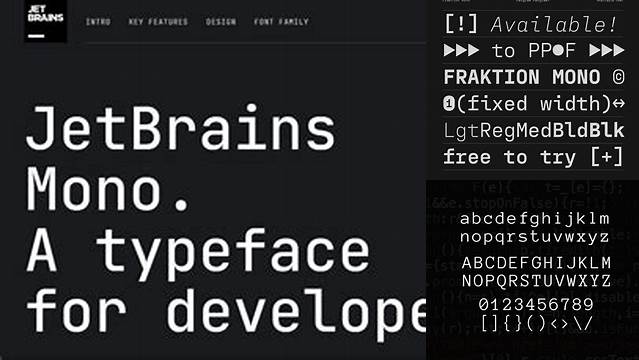
Best VSCode Monospace Fonts For Coding
Choosing the right monospace font for your VSCode editor can significantly impact your coding experience. A good font enhances readability, reduces eye strain, and ultimately boosts your productivity. In this article, we'll dive deep into the world of monospace fonts, exploring some of the best options available and helping you make an informed decision for your coding needs.
Why Monospace Fonts Matter for Coding
Monospace fonts are essential for coding because each character occupies the same horizontal space. This uniform spacing is crucial for aligning code blocks, making it easier to spot errors and understand the structure of your code. Imagine trying to debug code written in a proportional font where 'i' and 'm' take up different widths β it would be a nightmare! Monospace fonts provide the clarity and consistency needed for efficient coding.
When you're spending hours staring at your screen, the readability of your font becomes paramount. A well-designed monospace font reduces eye strain by ensuring that characters are distinct and easily distinguishable. Features like clear differentiation between '0' and 'O', or '1', 'l', and 'I', are vital. The right font can make your code look cleaner and more organized, helping you focus on problem-solving rather than deciphering text. Moreover, a great font can even make coding more enjoyable. Let's face it, developers spend a significant portion of their day writing and reading code. A visually appealing font can transform the coding environment from a chore to a pleasure. This is why so many developers obsess over finding the perfect font β it's not just about aesthetics, it's about creating an optimal workspace. Different developers have different preferences, so it's a very personal choice. Some prefer a more minimalist look, while others like fonts with more character. The font size, line height, and even the level of anti-aliasing can also play a role in how comfortable a font is to use. It's worth experimenting with different settings to find what works best for you. Ultimately, the best monospace font is the one that allows you to code comfortably and efficiently, without distractions.
Key Features to Look for in a Monospace Font
When selecting a monospace font, there are several key features to consider to ensure it meets your coding needs. Readability, character distinction, and support for ligatures are some of the most important aspects.
Readability is the most crucial factor. The font should be easy to read for extended periods without causing eye strain. Look for fonts with clear, well-defined characters and adequate spacing. The shape and weight of the characters should be such that they are easily distinguishable, even at smaller sizes. A font that appears blurry or cramped can quickly lead to fatigue. It's also important to consider how the font looks on different screen resolutions and pixel densities. Some fonts may look great on a high-resolution display but appear less crisp on a lower-resolution screen. Experiment with different font sizes and weights to find the optimal setting for your monitor. Remember, the goal is to find a font that feels natural and effortless to read, allowing you to focus on the code itself rather than the appearance of the text.
Character distinction is another essential aspect. Certain character pairs, like '0' and 'O', or '1', 'l', and 'I', can often be easily confused in some fonts. A good monospace font will have clear differences between these characters, reducing the chance of errors. Pay attention to the shapes and proportions of individual characters. The more distinct they are, the easier it will be to spot mistakes in your code. For example, some fonts use a slashed zero (β ) or a dotted zero (0ΜΈ) to differentiate it from the uppercase O. Others may use serifs or other stylistic elements to make the characters more unique. Take the time to compare different fonts side-by-side, focusing on these potentially confusing characters. You might be surprised at how much difference a small design tweak can make in terms of readability and accuracy.
Ligatures are special characters that combine two or more glyphs into a single, more visually appealing form. In coding fonts, ligatures can make certain code constructs, like !=, =>, or ===, appear as single, unified symbols. This can improve readability and make the code look cleaner. However, the use of ligatures is a matter of personal preference. Some developers find them helpful, while others find them distracting. It's important to choose a font that supports ligatures if you want to use them, and to make sure that your editor is configured to display them correctly. Keep in mind that not all fonts have the same set of ligatures, so you may need to try out a few different options to find one that suits your coding style.
Top Monospace Fonts for VSCode
Alright, guys, let's jump into some of the top monospace fonts that are perfect for VSCode. We've got a mix of popular choices and some hidden gems that you might just fall in love with. Choosing the right font can seriously boost your coding mojo, so let's get right to it!
1. Fira Code
Fira Code is a wildly popular choice among developers, and for good reason. Its standout feature is its support for programming ligatures. Ligatures, in this context, are special characters that combine multiple symbols into one, making your code look cleaner and more readable. For example, common operators like !=, =>, and === can be displayed as single, connected symbols, which many find visually appealing and easier to parse. This can significantly reduce visual clutter and help you focus on the logic of your code. Beyond ligatures, Fira Code boasts excellent readability thanks to its clear, geometric design. The characters are well-formed and easily distinguishable, which minimizes eye strain, especially during long coding sessions. The font is also designed to look great at various sizes, ensuring that your code remains legible whether you're working on a large monitor or a smaller laptop screen. Fira Code's open-source nature is another significant advantage. This means it's free to use and distribute, and it's actively maintained by a community of developers who contribute to its ongoing improvement. The font also supports a wide range of characters, including those used in many programming languages and scripts, making it a versatile choice for diverse coding projects. If you're new to the world of monospace fonts or simply looking for a reliable and visually pleasing option, Fira Code is definitely worth trying. Its combination of ligatures, readability, and open-source nature makes it a top contender for any developer's font arsenal. And honestly, once you get used to those ligatures, it's hard to go back!
2. JetBrains Mono
JetBrains Mono is a font specifically crafted for developers by JetBrains, the company behind popular IDEs like IntelliJ IDEA and PyCharm. As you might expect from a font designed by IDE experts, JetBrains Mono prioritizes readability and aims to reduce eye strain during long coding sessions. One of its key features is its increased character height, which makes the characters appear larger and more distinct without actually taking up more horizontal space. This can be particularly beneficial for developers who find themselves squinting at smaller fonts. Another design element that enhances readability is the unique shape of each character, which makes it easier to distinguish between similar symbols like '0' and 'O' or '1', 'l', and 'I'. JetBrains Mono also includes a set of programming ligatures, allowing for a cleaner and more streamlined appearance of code constructs like != or ->. These ligatures are designed to be subtle and unobtrusive, enhancing readability without being overly distracting. Beyond its functional design, JetBrains Mono also has a modern and somewhat minimalist aesthetic that many developers find appealing. It's a font that looks clean and professional, which can contribute to a more focused and productive coding environment. Like Fira Code, JetBrains Mono is also open-source, meaning it's free to use and distribute. This makes it an accessible option for developers of all levels, whether you're a student, a hobbyist, or a professional. If you're looking for a font that's designed with the specific needs of programmers in mind, JetBrains Mono is definitely worth checking out. Its focus on readability, character distinction, and subtle ligatures makes it a strong contender in the monospace font arena.
3. Cascadia Code
Cascadia Code is a relative newcomer to the monospace font scene, but it has quickly gained popularity, especially among Windows users. Developed by Microsoft, Cascadia Code was initially designed for the Windows Terminal and the new Monaco editor. Its unique design is characterized by a slightly condensed character width, which allows more code to fit on the screen without sacrificing readability. This can be a significant advantage for developers who work with large codebases or multiple windows simultaneously. One of the standout features of Cascadia Code is its support for programming ligatures. Like Fira Code and JetBrains Mono, Cascadia Code combines certain character sequences into single glyphs, making code constructs like !=, =>, and === appear as single symbols. However, Cascadia Code's ligatures have a distinct style that sets them apart, with a more geometric and angular aesthetic. The font also boasts excellent readability, thanks to its clear and well-defined characters. The shapes are designed to be easily distinguishable, even at smaller sizes, which minimizes eye strain. Cascadia Code is also designed to be visually appealing, with a modern and somewhat futuristic look. It's a font that feels both functional and stylish, which can make coding a more enjoyable experience. Being a Microsoft-developed font, Cascadia Code integrates seamlessly with Windows environments, but it's also available for macOS and Linux. It's also open-source, meaning it's free to use and distribute, making it accessible to a wide range of developers. If you're looking for a modern, feature-rich monospace font with excellent readability and a unique aesthetic, Cascadia Code is definitely worth considering. Its condensed character width, distinctive ligatures, and seamless integration with Windows make it a compelling choice for many developers.